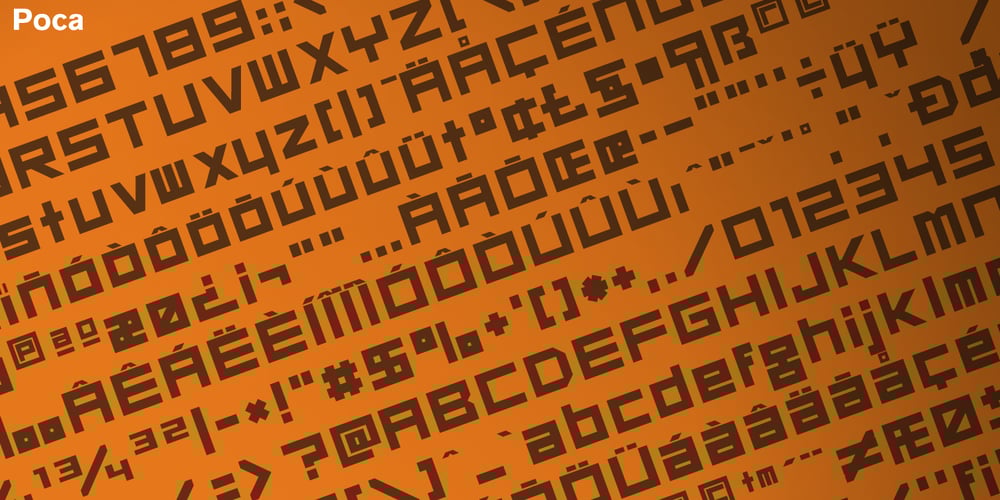
Poca Font Family was designed by Enric Jardí, Pere Torrent-Peret and published by Type-Ø-Tones. Poca contains 1 styles and family package options. Poca is made up of right angles and regular strokes. It is a De Stijl typeface provided by Peret. We devised the lower case letters and added some Peret dingbats. Fifteen years later we added a fun bitmap version.